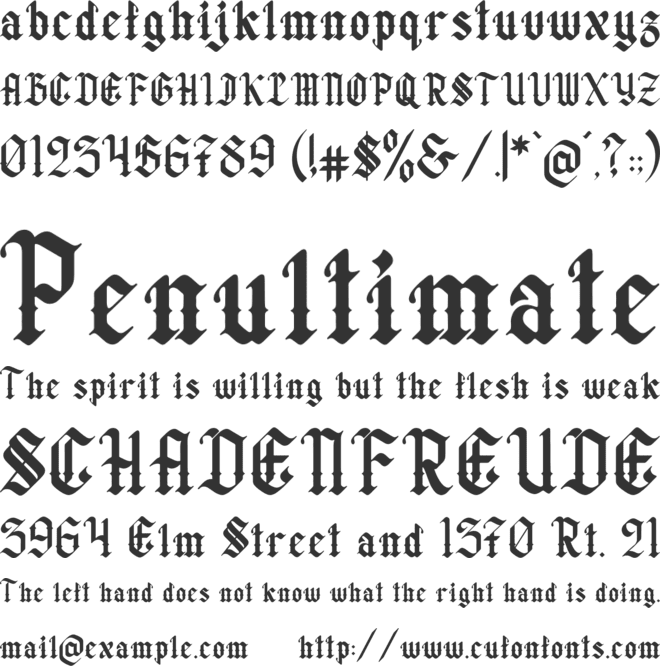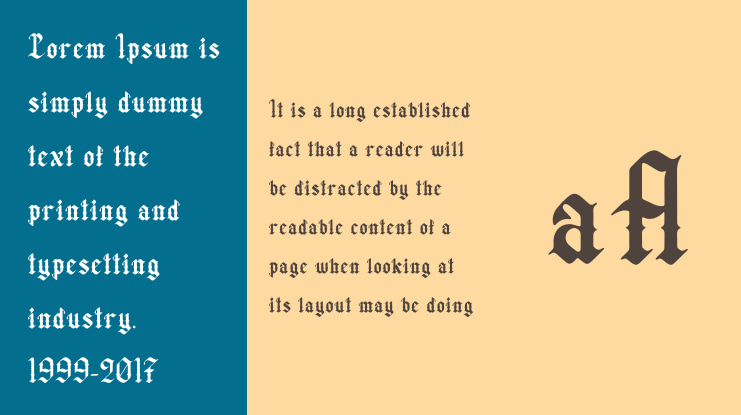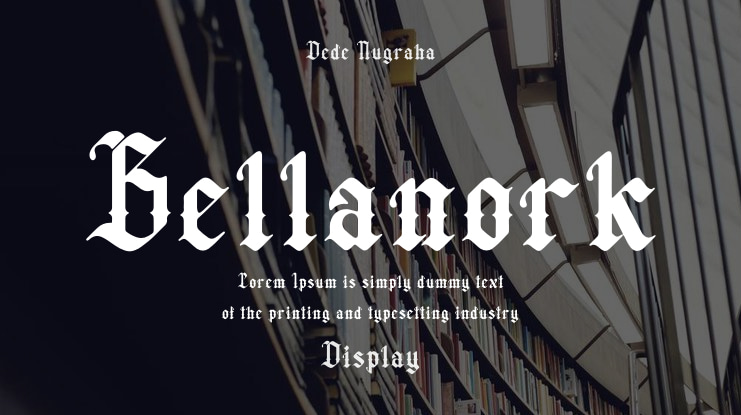
Dede Nugraha
Bellanork | Blackletter Typeface product packaging, mugs, quotes, posters, shopping bags, t-shirts, book covers, name card, invitation cards, greeting cards, label, photography, watermark, special events, and all your other lovely projects that need a Blackletter Typeface taste.